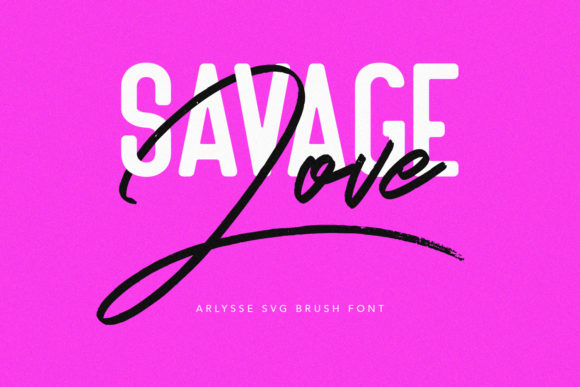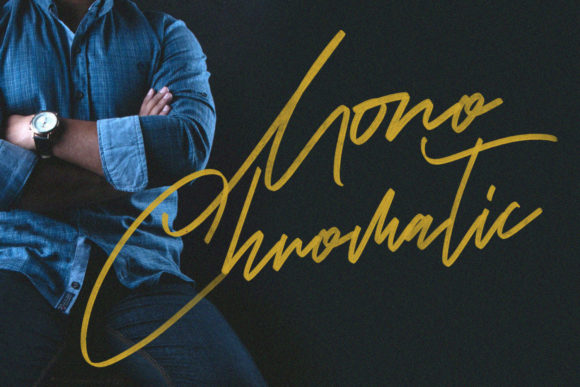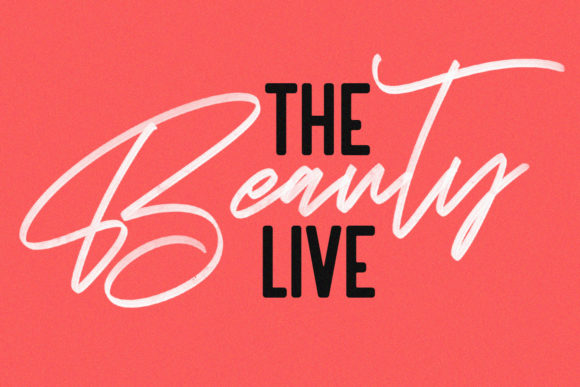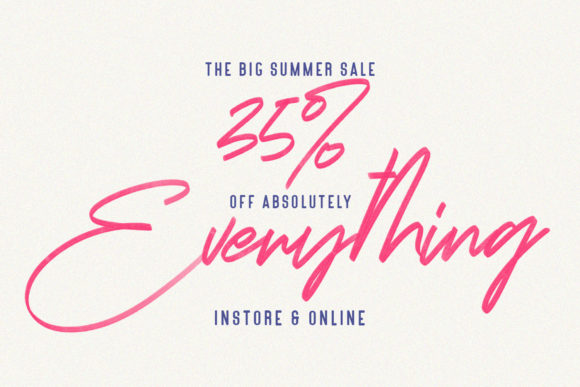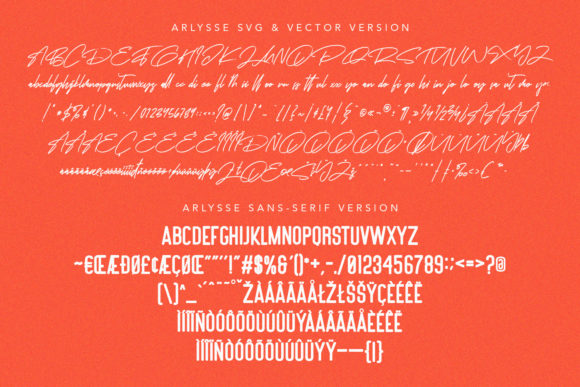
Introducing Arlysse Font: A Match Made in Heaven for Designers and Crafters
Are you tired of using the same old fonts in your designs? Look no further! Arlysse Duo Font is a game-changer, perfectly combining a strong sans serif with a gorgeous script font. This fantastic font duo is a match made in heaven, offering endless possibilities for designers and crafters alike. In this article, we’ll dive into the world of Arlysse Font, exploring its features, uses, and benefits.
The Perfect Pairing: Sans Serif and Script Font
Arlysse Duo Font consists of two complementary fonts: a robust sans serif and a beautiful script font. The sans serif font is perfect for headlines, titles, and emphasis, while the script font adds a touch of elegance and sophistication. Together, they create a stunning visual contrast that will elevate your designs to the next level.
The sans serif font is clean, modern, and highly legible, making it ideal for body text, captions, and other small text elements. Its strong and sturdy design ensures that your message gets across clearly, while its neutral look allows it to blend seamlessly with any design style.
The script font, on the other hand, is a gorgeous, handcrafted brush font that adds a personal touch to your designs. Its fluid strokes and natural look give it an authentic, handmade feel that’s perfect for creating unique and eye-catching designs. Use it for signatures, quotes, titles, or any other design element that needs a touch of personality.
Give Your Designs an Authentic Brush Handcrafted Feel with SVG Brush
One of the standout features of Arlysse Font is its SVG brush. This amazing feature allows you to create designs with a genuine, hand-painted look. The SVG brush is perfect for adding a touch of whimsy and personality to your designs, making them truly one-of-a-kind.
With the SVG brush, you can create stunning designs that look like they were painted by hand. From beautiful watercolor-inspired backgrounds to intricate illustrations, the possibilities are endless. The SVG brush is also highly versatile, allowing you to adjust its size, color, and texture to suit your design needs.
Endless Design Possibilities with Arlysse Font
Arlysse Font is an incredibly versatile font duo that’s perfect for a wide range of design projects. Here are some ideas to get you started:
- Signature: Create stunning signatures that make a lasting impression.
- Stationery: Design beautiful stationery sets, including letterheads, envelopes, and notecards.
- Logo: Develop unique and memorable logos that showcase your brand’s personality.
- Typography quotes: Create inspiring and eye-catching typography quotes that share your message.
- Magazine or book cover: Design captivating magazine or book covers that grab attention.
- Website header: Create stunning website headers that set the tone for your online presence.
- Flyers: Design eye-catching flyers that promote your products or services.
- Clothing: Create fashionable clothing designs that showcase your brand’s style.
- Branding: Develop a consistent brand identity that reflects your values and personality.
- Packaging design: Design beautiful and functional packaging that stands out on store shelves.
Why Choose Arlysse Font?
So, why should you choose Arlysse Font for your design projects? Here are just a few reasons:
- Unique and versatile: Arlysse Font offers a unique combination of sans serif and script fonts, making it perfect for a wide range of design projects.
- Authentic brush feel: The SVG brush feature gives your designs an authentic, hand-painted look that’s sure to impress.
- Easily legible: The sans serif font is highly legible, making it perfect for body text and small text elements.
- High-quality design: Arlysse Font is designed with high-quality graphics in mind, ensuring that your designs look stunning and professional.
In conclusion, Arlysse Font is a match made in heaven for designers and crafters. Its perfect combination of sans serif and script fonts, along with its SVG brush feature, makes it an incredibly versatile and powerful font duo. Whether you’re designing signatures, logos, typography quotes, or packaging, Arlysse Font is the perfect choice. So why wait? Try Arlysse Font today and take your designs to the next level!